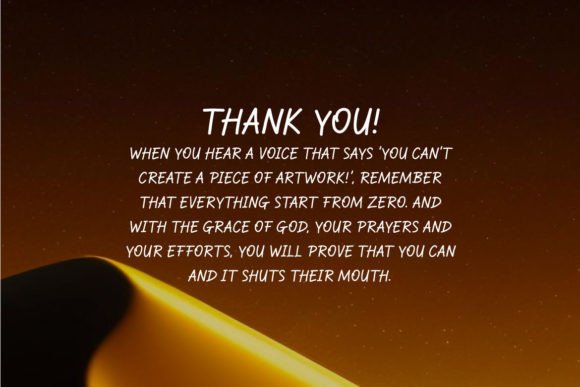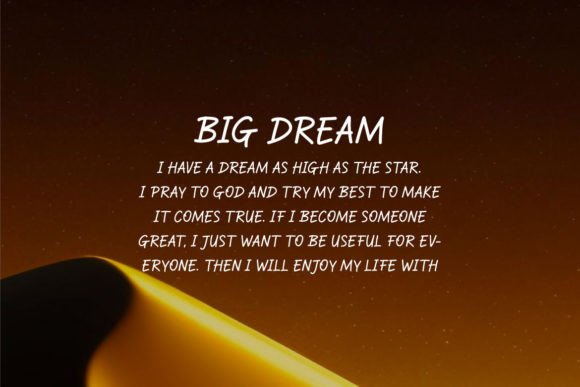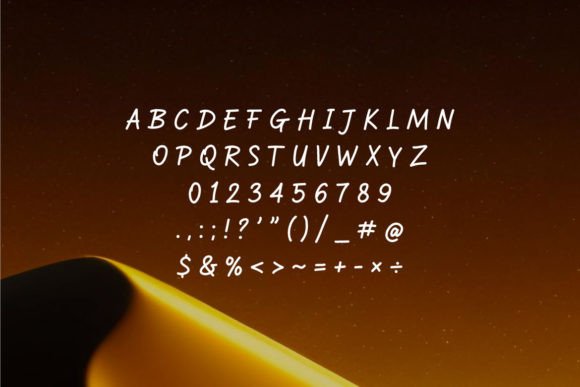
Introduction to Gordland Font
Have you ever been working on a creative project, staring at a blank canvas or page, trying to decide on the perfect font to bring your idea to life? That’s where the magic of the Gordland Font comes in – a sweet and friendly handwritten font that can elevate any design and make it truly special.
With its natural and unique style, the Gordland Font is an incredibly versatile design resource that can be used in a wide range of creative projects, from digital art to print materials. Whether you’re working on a project that requires a transparent background or need a high-quality font for a promotional poster, the Gordland Font is an excellent choice.
Key Features of Gordland Font
- High-quality design resource perfect for creative projects, offering a unique and stylish aesthetic.
- Features a transparent background, allowing for effortless layering and customization in your design projects.
- Designed at a high resolution of 300 DPI, ensuring crisp and clear typography in both print and digital applications.
- Available in a range of sizes, from 12 to 72 points, providing flexibility for use in various design contexts.
- Unique characteristics include a bold and modern feel, making it an ideal choice for designers looking to add a touch of sophistication to their creative projects.
Honest Review: Gordland Font
I recently had the opportunity to work with the Gordland Font for a creative project, and I must say it’s been a game-changer. As a designer, I’m always on the lookout for high-quality design resources that can elevate my work, and the Gordland Font delivers.
- ✨ Elegant and modern design aesthetic that’s perfect for a variety of creative projects
- ⚠️ Limited font weights and styles available
- ⚠️ Not ideal for use with transparent backgrounds, as the font’s design can become distorted
Overall, I’m impressed with the Gordland Font, and I would definitely recommend it to fellow designers. While it may not be perfect, its high quality and free download option make it a valuable addition to any design resource library.
Tips for Getting the Most Out of Gordland Font
The Gordland Font is ideal for creating high-quality designs for various creative projects, including business cards, brochures, and website headers. It’s also suitable for use in presentations, social media graphics, and other visual content.